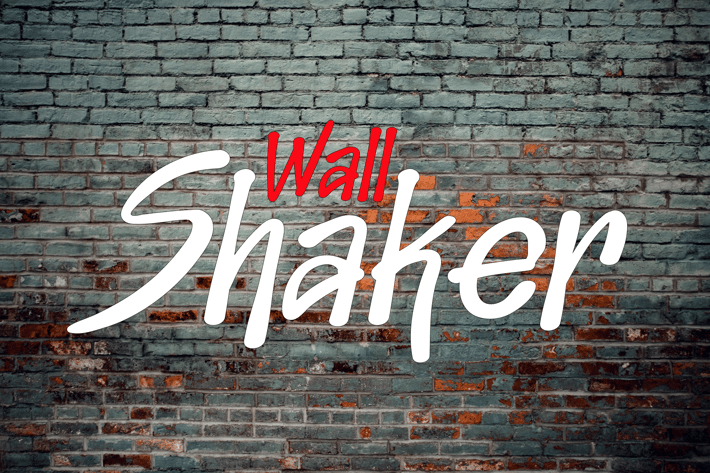
Wall Shaker - Bold Graffiti Font
Wall Shaker is the perfect font for those who want to make a statement. With its urban, street art-inspired style, this font is perfect for anyone looking to add a rebellious edge to their designs. The brush and marker-style letters give the font a raw, edgy feel that is perfect for extreme and urban online games, posters, movie titles, fast food menus, magazines, youtube covers, youtube thumbnails, social media page covers, and more.
The bold, attention-grabbing letters are perfect for making a statement and standing out in a crowd. Whether you're looking to create a bold poster or add some edge to your social media page, Wall Shaker is the perfect font to help you make a statement. So shake things up with Wall Shaker and add some rebellious edge to your designs!